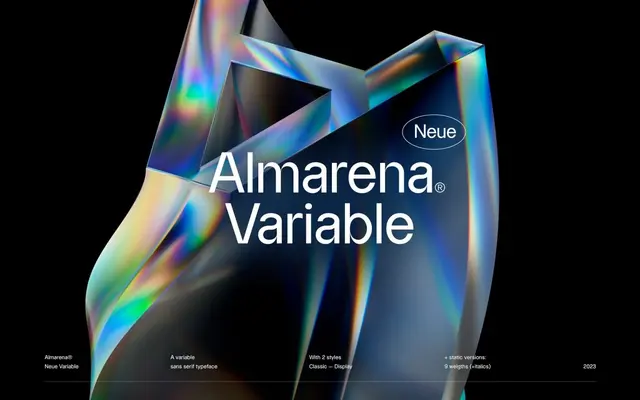
Almarena Neue
Almarena · Jérémie Gauthier · 2023
A variable grotesque by Jérémie Gauthier offered in Classic and Display optical styles across nine weights with italics, drawing on the 19th-century lineal tradition.
Released in 2023, it operates on three variable axes covering weight, display contrast and italic, giving designers a single file that spans from text to large-format use. The Classic style carries ink traps and thin hairlines intended to give it more character than a straight Helvetica derivative, while the Display style opens up contrast for headline work. Language support runs across a broad range of Latin-based languages from Afrikaans to Zulu.
The foundry explicitly classifies it as a lineal/grotesk in the tradition of 19th-century grotesques, with ink traps and a sans-serif construction free of serifs and ornament.